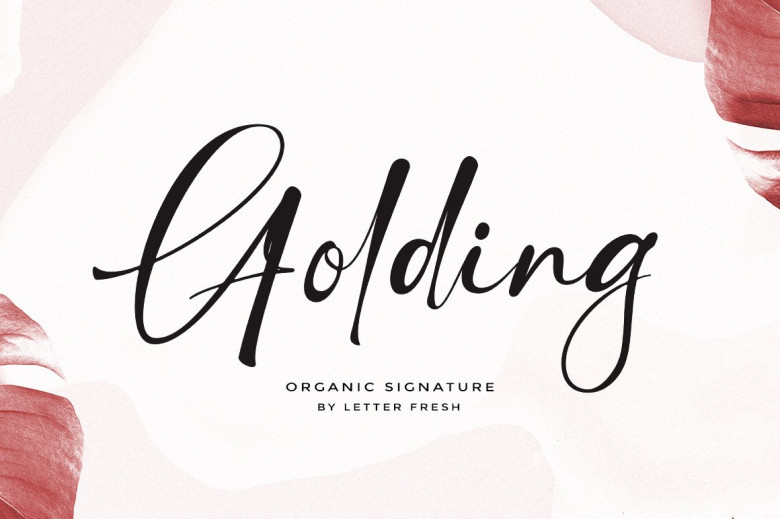
Golding Font
Introducing Golding is a distinct, elegant, and modern Signature font. that resembles a signature, was ergo made with unique and alternated ligatures, titled hand display, makes it the best choice for all of your design works like logo, label, packaging design, blog title, poster, wedding designs, social media posts, Instagram design, etc.
Golding Signature Script  Font